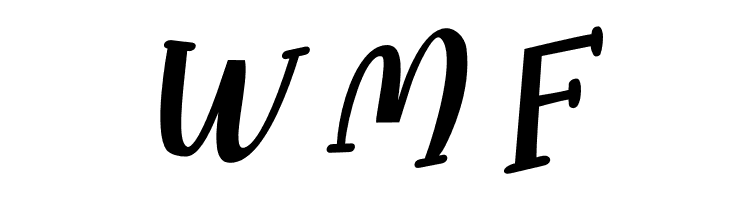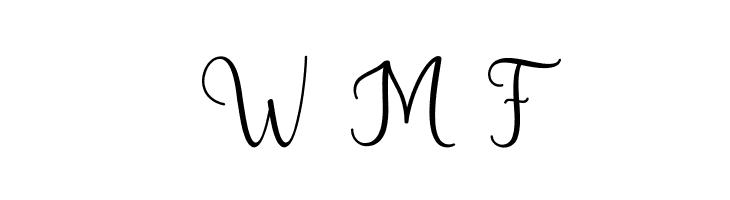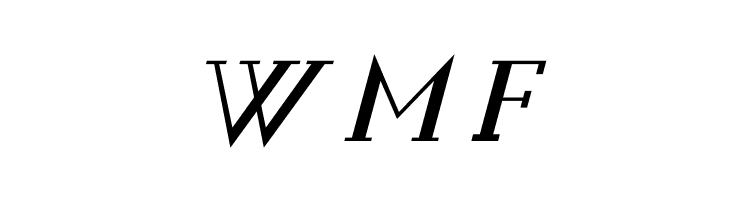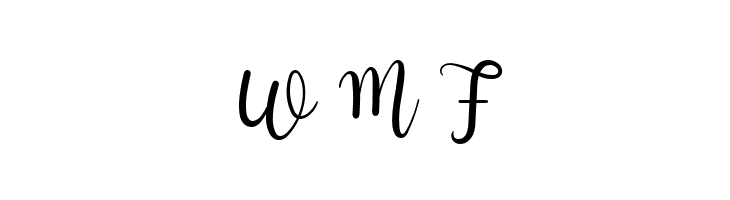
A charming and fluid script font with elegant, flowing letterforms.
An ornate, floral-decorated monogram font with a vintage charm.
A charming and elegant script font with flowing, cursive letterforms.
An elegant, flowing script font with graceful curves and a classic charm.
A playful, handwritten italic font with charming embellishments and a lively style.
A charming and elegant script font with a handwritten feel.
A charming, handwritten font with a playful and casual feel.
A charming script font with a handwritten, elegant style.
A charming, flowing script font with elegant, cursive letterforms and high contrast.
A charming and elegant script font with a handwritten feel.
A charming and fluid script font with elegant, flowing lines.
A charming and playful script font with fluid, connected letterforms.
An elegant script font with fluid, cursive strokes and a classic charm.
A charming and elegant handwritten script with flowing, interconnected letterforms.
A playful, handwritten font with bold, irregular strokes and a whimsical charm.
A playful, handwritten font with a whimsical, rustic charm.
A playful and whimsical script font with interconnected letters and a charming looped design.
A charming and elegant handwritten script font with fluid, connected letterforms.
A charming, fluid handwritten font with bold, confident strokes and a slight slant.
A charming and fluid script font with elegant, flowing curves and smooth connections.
A charming and elegant script font with a handwritten feel.
A charming and elegant script font with fluid, connected strokes and a modern flair.
An elegant italic serif font with refined strokes and classic charm.
A charming and fluid script font with elegant, flowing letterforms.
A playful and energetic handwritten font with fluid strokes and a casual charm.
A medium-weight, handwritten font with a tall, slender, and charming style.
A vintage script font with elegant, flowing lines and a classic charm.
A charming and elegant handwritten script with fluid, flowing letters.
A charming, fluid handwritten font with elegant cursive letters.
A bold, dynamic script font with interconnected characters and a modern vintage charm.
A playful, handwritten-style font with bold, rounded strokes and a whimsical charm.
An elegant, flowing script font with graceful loops and a sophisticated charm.
A playful, heart-themed font with bold, chunky letters and whimsical charm.